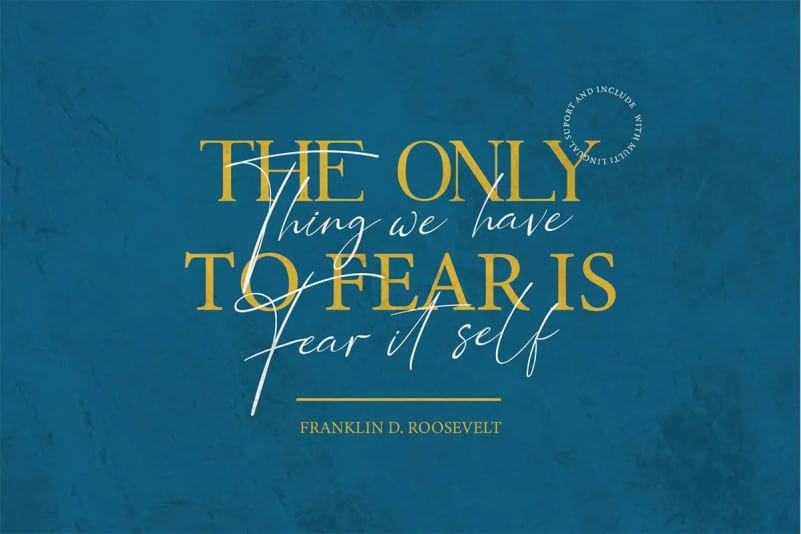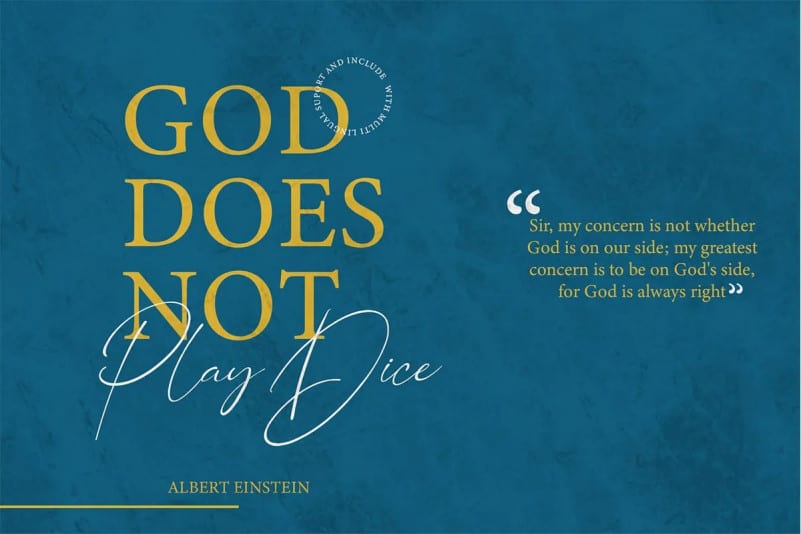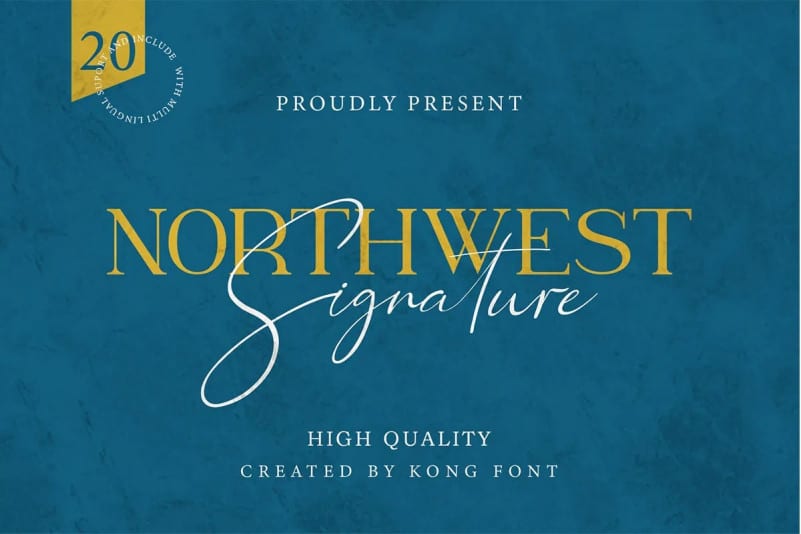
Northwest Signature Font Duo are two new modern script and serif font with a plain baseline. Stylish, luxurious and feminine. Northwest Signature looks beautiful in wedding invitations, thank you cards, quotes, greeting cards, logos, business cards and more. Perfect for use in ink or watercolor. Includes start and end letters, alternatives and support for many languages.